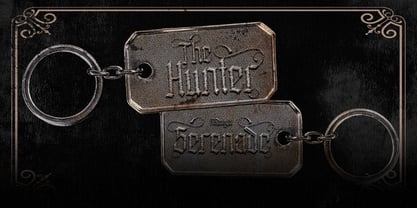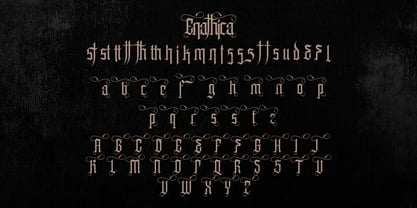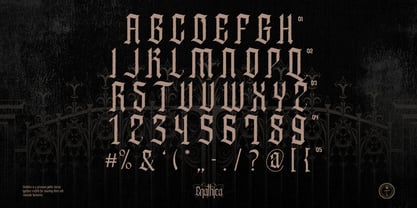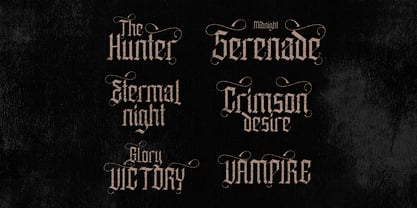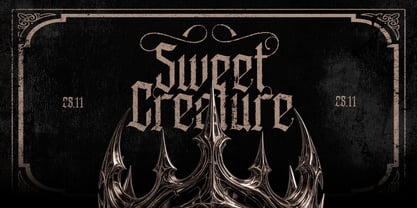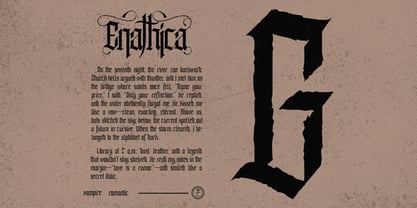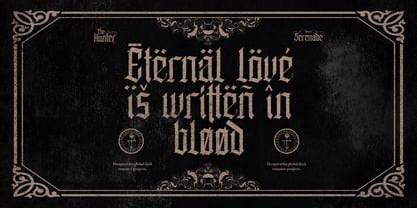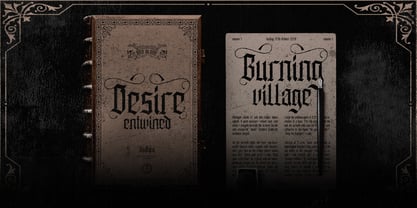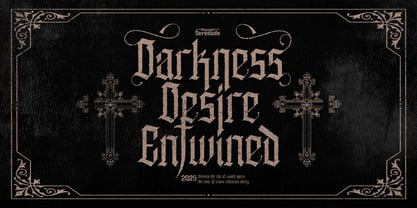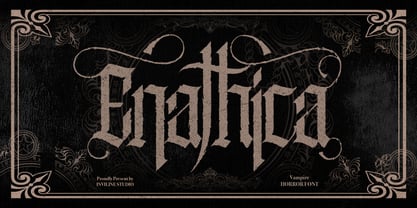
Enathica
by Inviline
The Enathica Font Family was designed by Virgiawan Listanto and published by Inviline. Enathica contains 1 styles. More about this family
Enathica is a bold and haunting vampire horror font that evokes the eerie elegance of gothic romance and classic horror. Crafted with sharp blackletter-inspired strokes and ornamental swashes, it delivers a spine-chilling aesthetic that is both timeless and theatrical. This font offers uppercase, lowercase, ligatures, alternates, symbols, punctuation, and numerals—making it ideal for creative professionals who want to inject dramatic flair into their designs. Whether you're a vampire-themed book cover, metal band logo, occult merchandise, or Halloween posters, Enathica is your perfect typeface for storytelling in darkness and desire.
Designers: Virgiawan Listanto
Foundry: Inviline